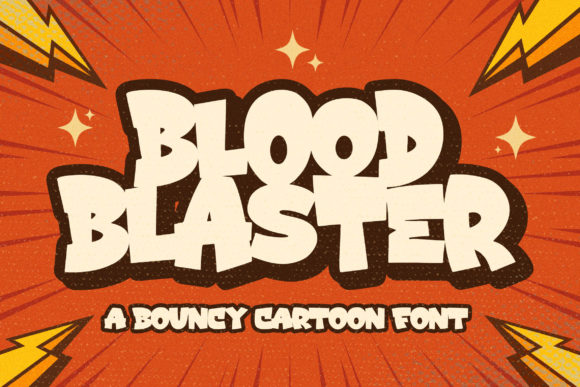
Journey into the world of Blood Blaster Font, a font family that captures the essence of playfulness and authenticity. Created by the talented Blankids Studio, Blood Blaster is a cool, bold, and thick lettered display font that brings life to your creative projects.
Immerse yourself in the world of creativity with Blood Blaster, a font that embodies the vibrancy and spirit of youth. Its unique letterforms, reminiscent of playful scribbles and doodles, spark imagination and transport you back to the carefree days of childhood. Each stroke of the Blood Blaster font exudes a sense of freedom and authenticity, inviting you to embrace your inner child and let your creativity soar.
Whether crafting enchanting posters for a school project, designing eye-catching flyers for a community event, or creating personalized greeting cards for loved ones, Blood Blaster is the perfect companion for projects that demand a touch of whimsy and authenticity. Its playful spirit adds a spark of joy to any design, leaving a lasting impression on your audience.
Unlock the endless possibilities of Blood Blaster, a font that transforms the ordinary into the extraordinary. Its bold and thick letterforms command attention, making your words leap off the page. Unleash your imagination and let Blood Blaster be your creative partner, helping you craft messages that resonate and leave a lasting impact.